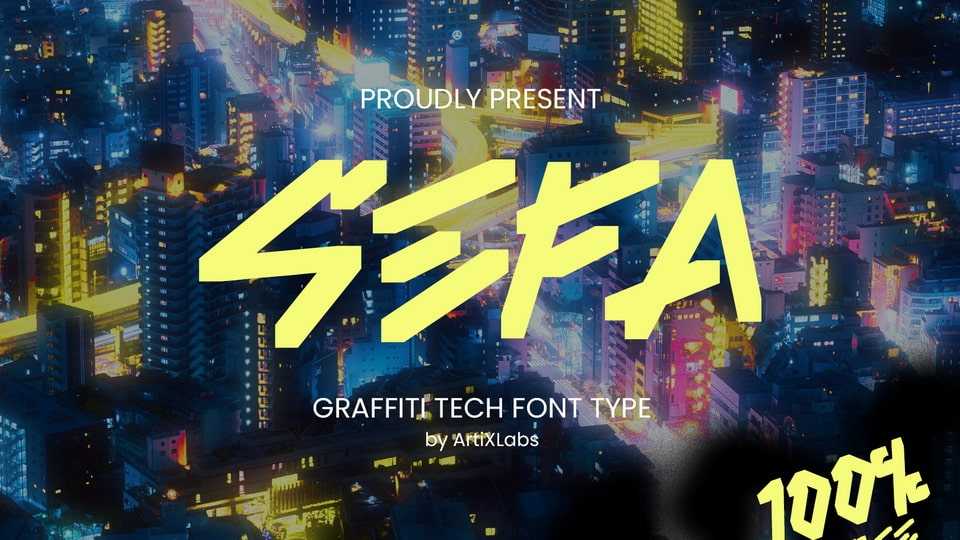
Download Sefa font, a bold graffiti tech typeface inspired by cyberpunk cityscapes and urban street style. Its sharp edges and futuristic shapes make it perfect for logos, esports branding.
Designer: ArtiXLabs